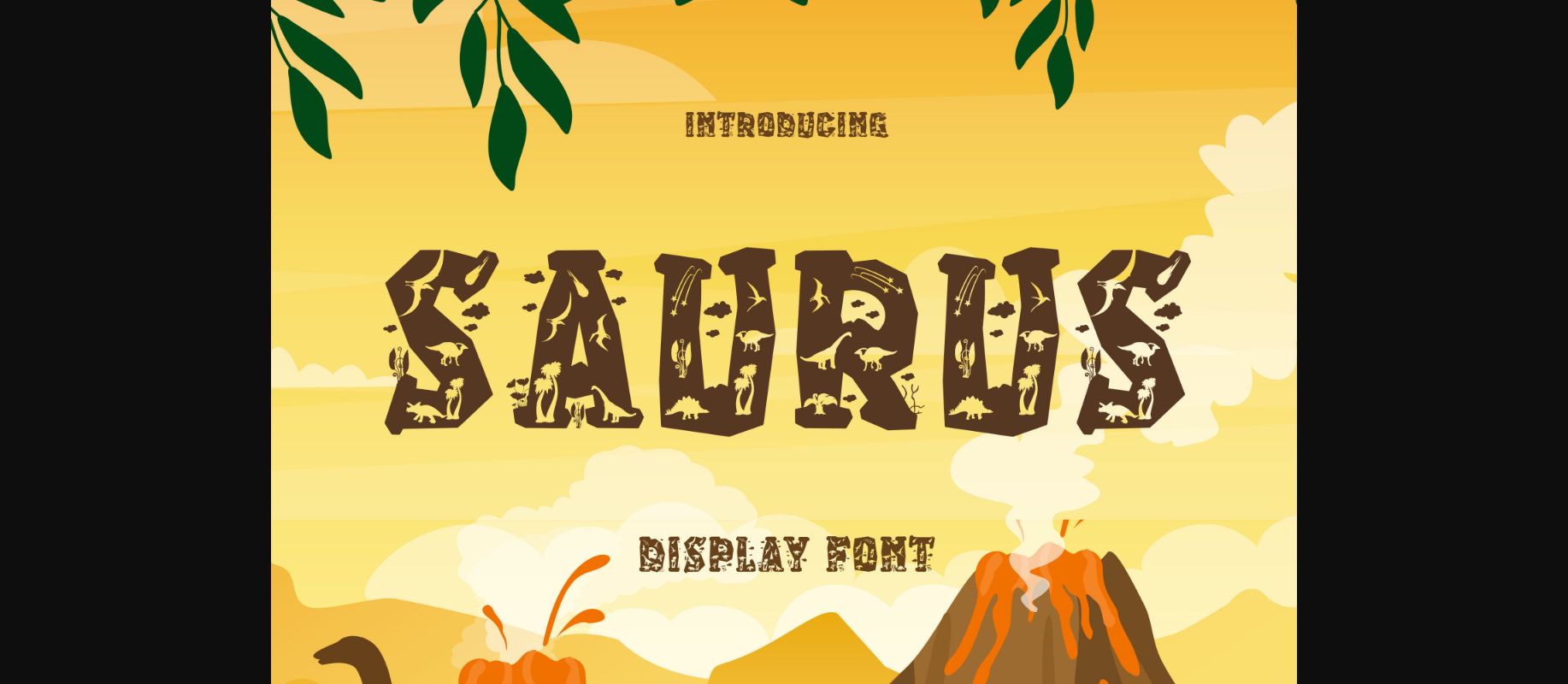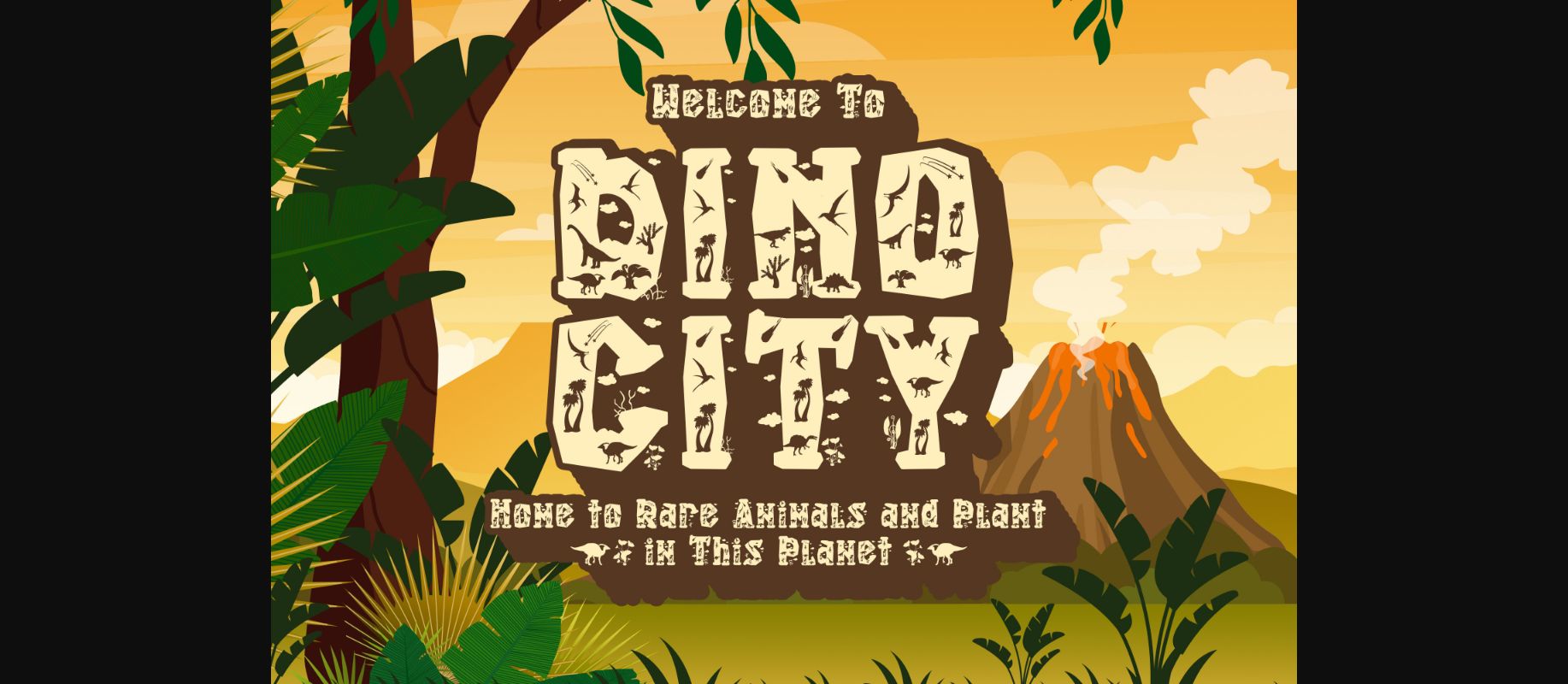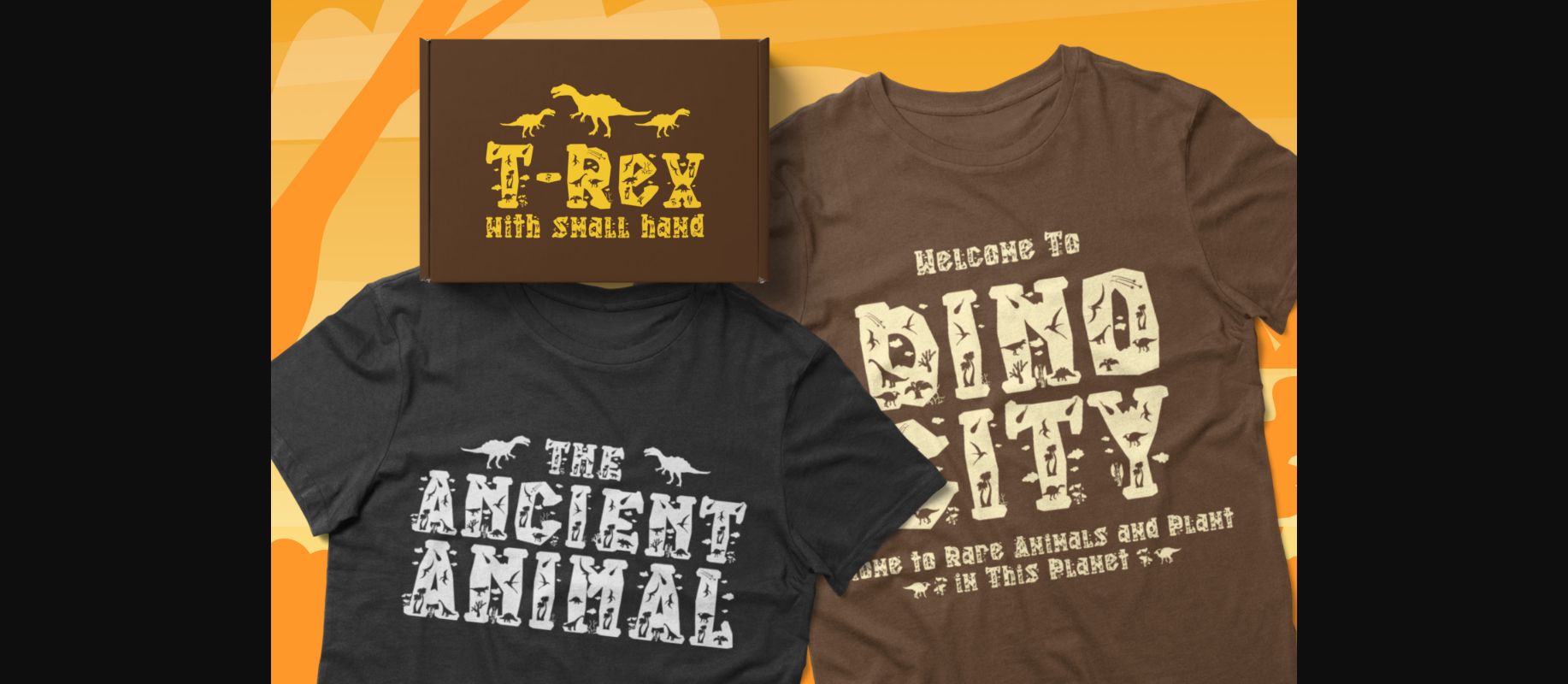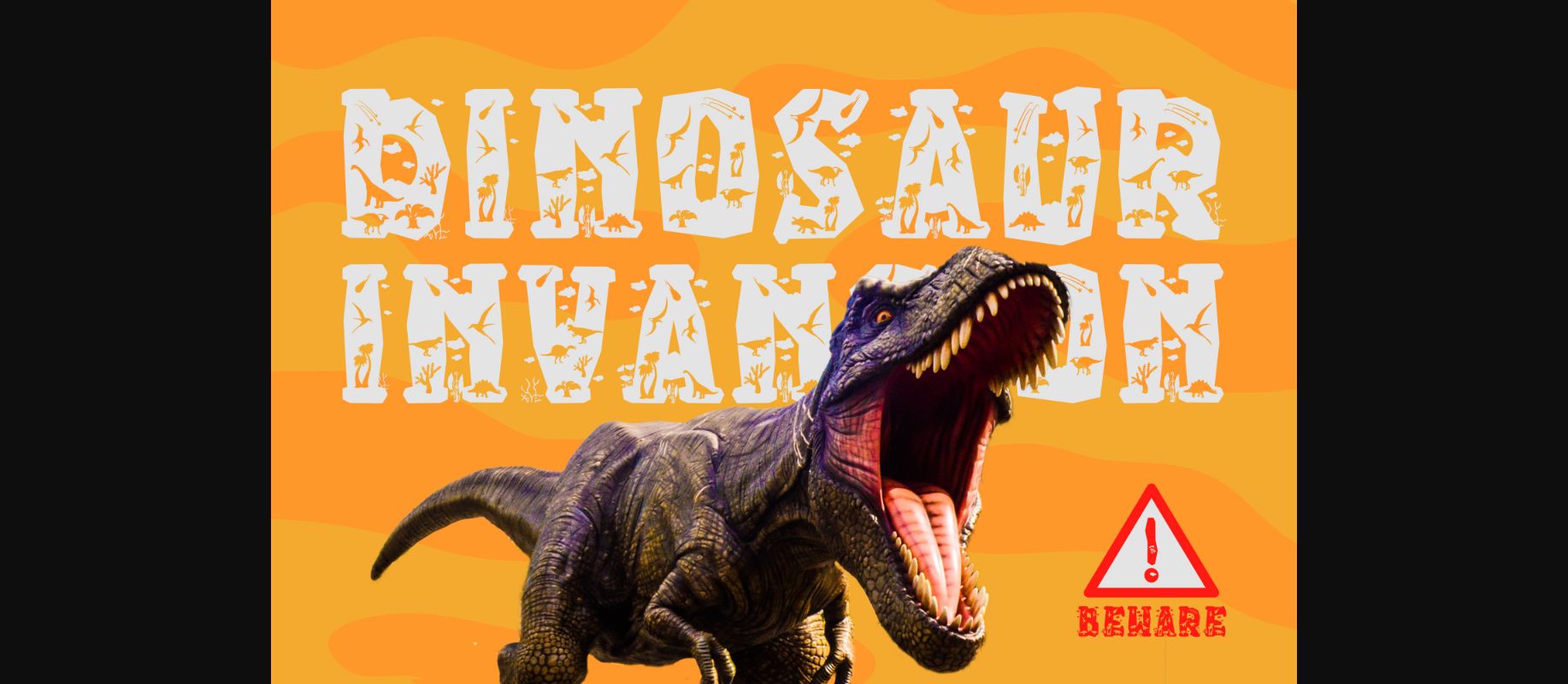
About Saurus Font
Saurus is an incredibly unique and mystique decorative font. It looks incredibly well on posters, flyers and pretty much any design that requires a medieval touch.